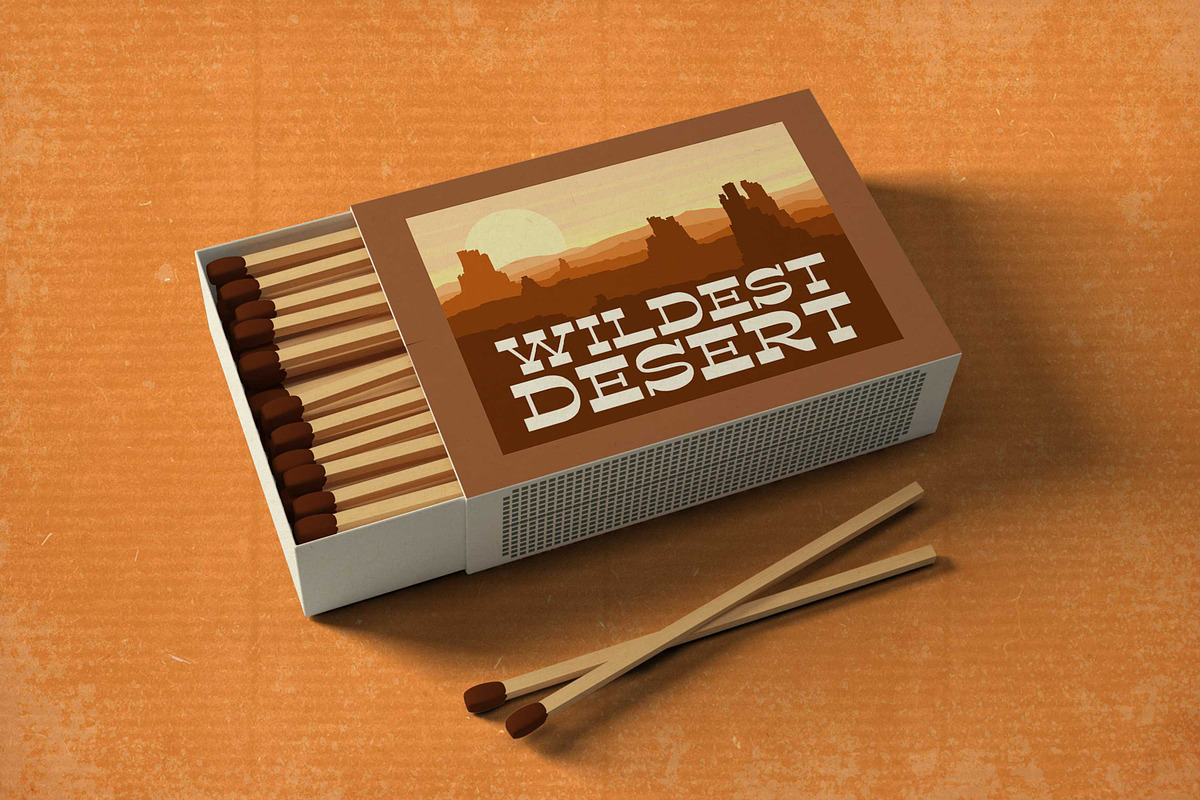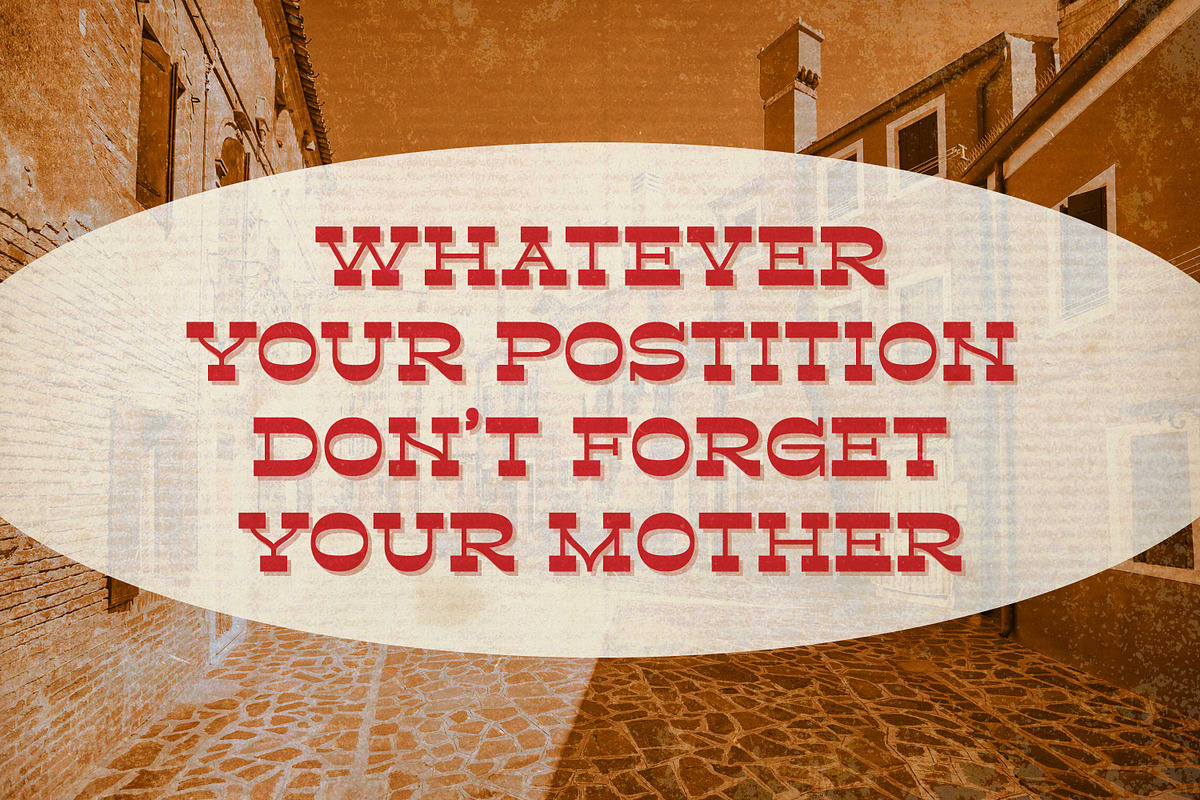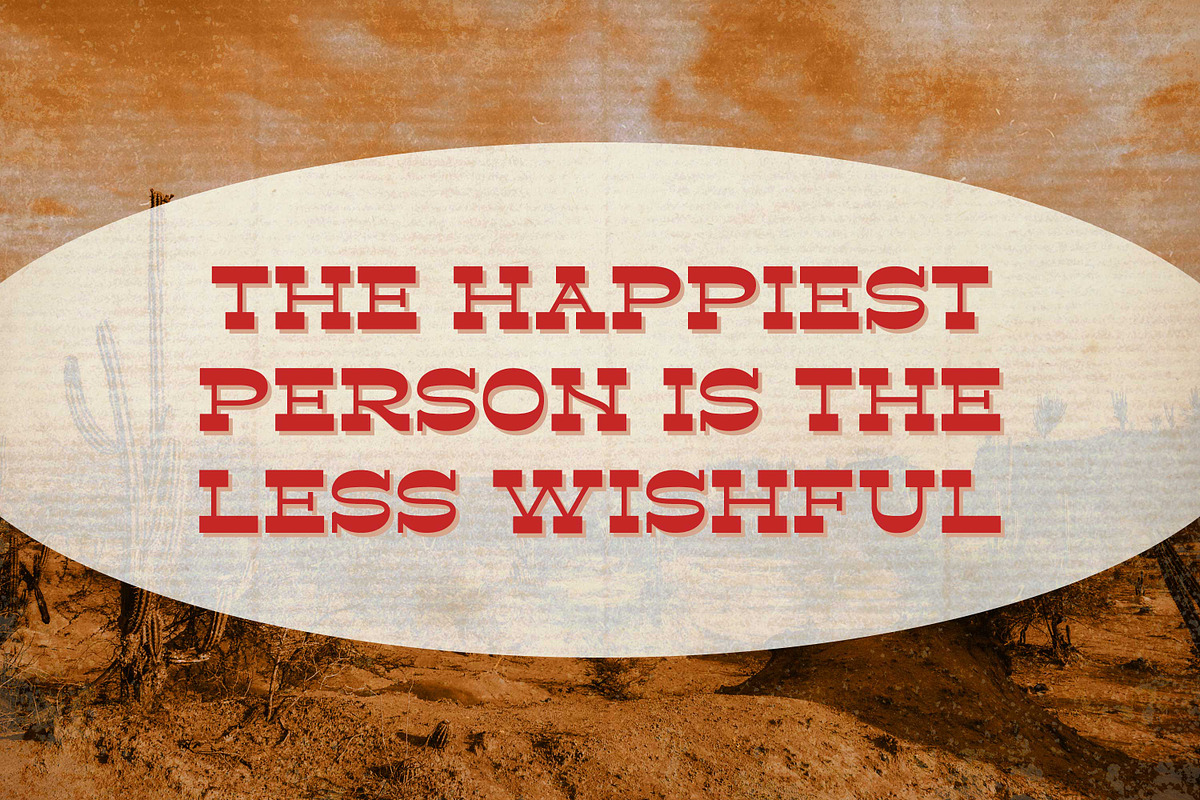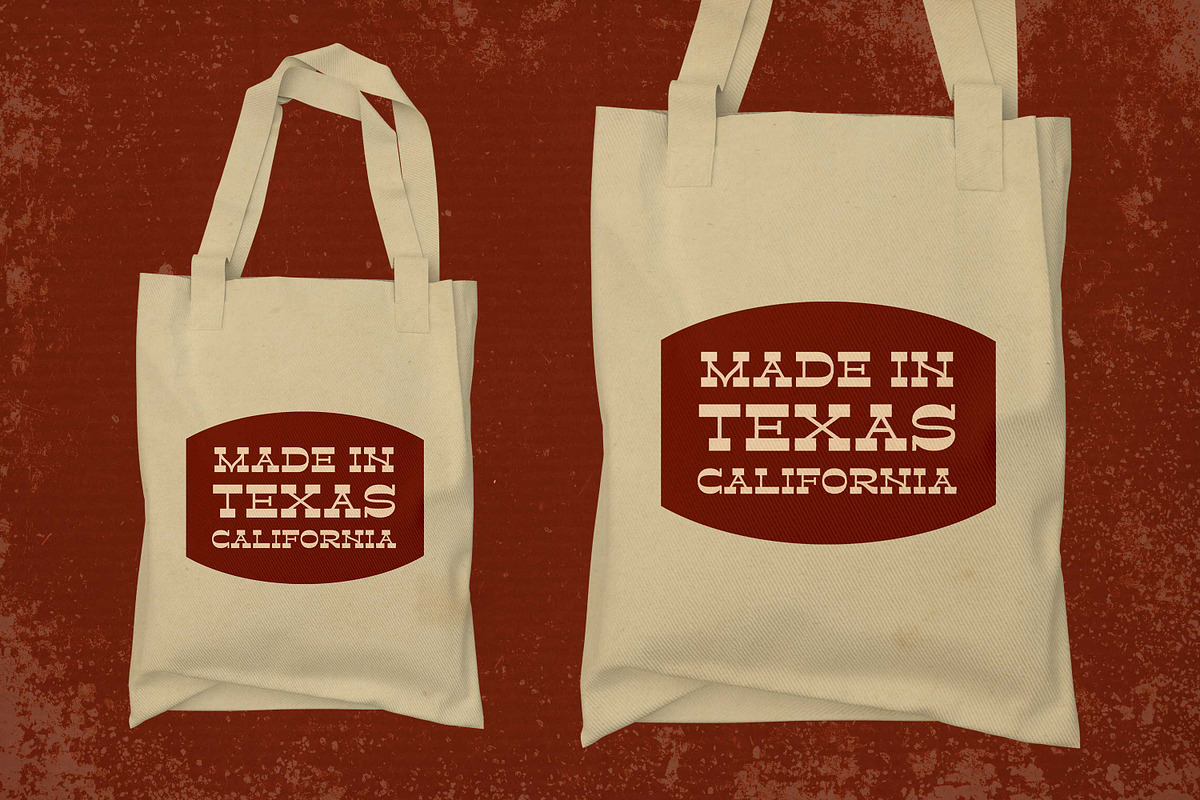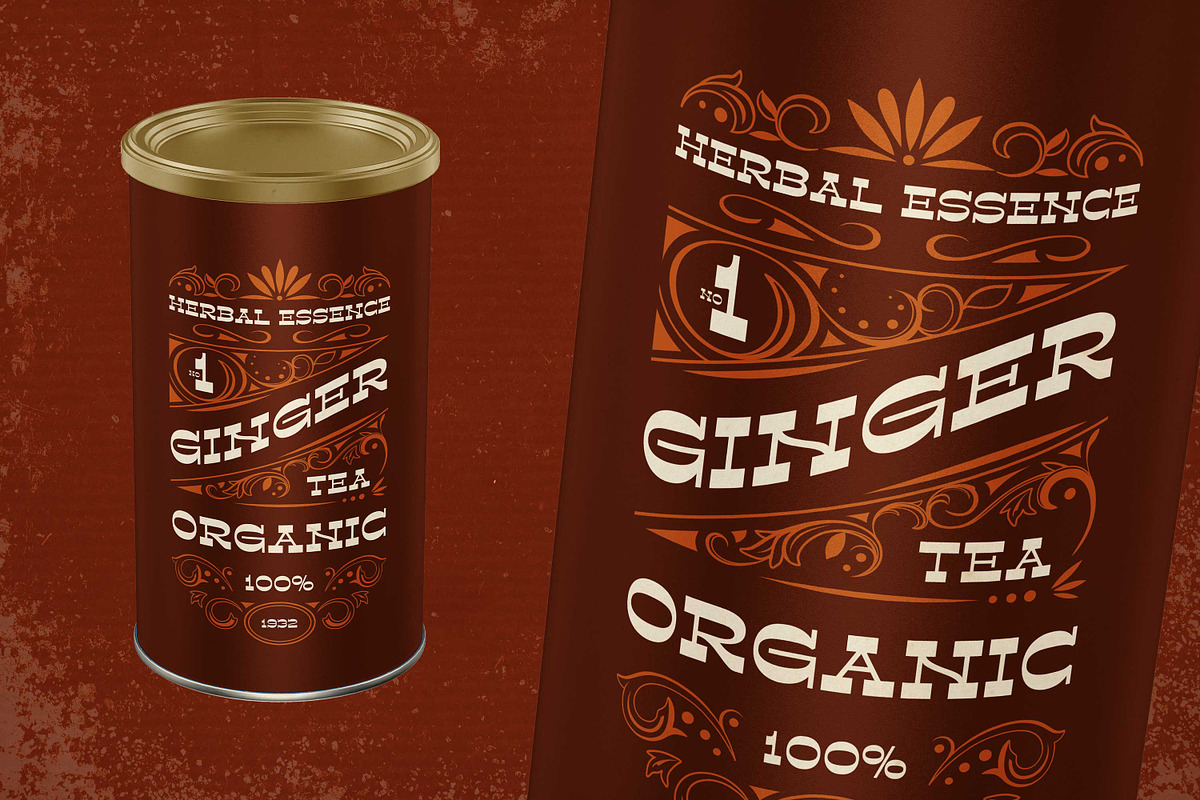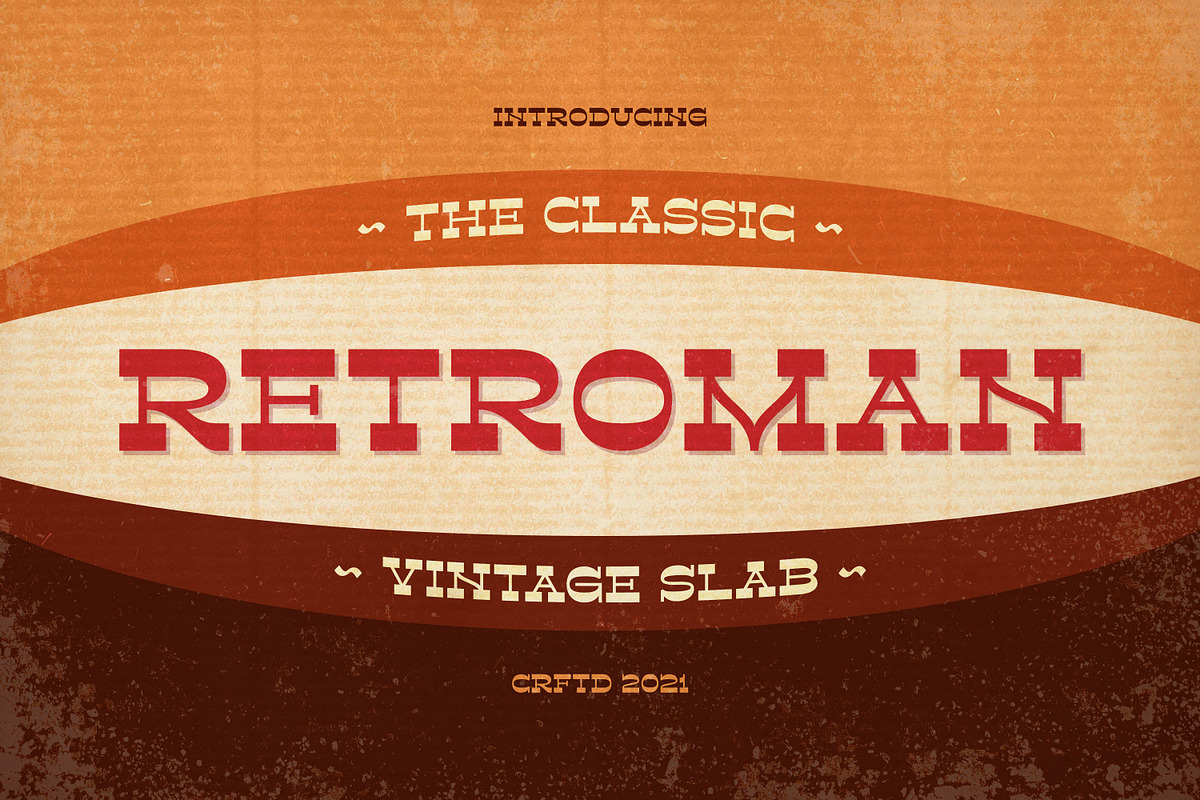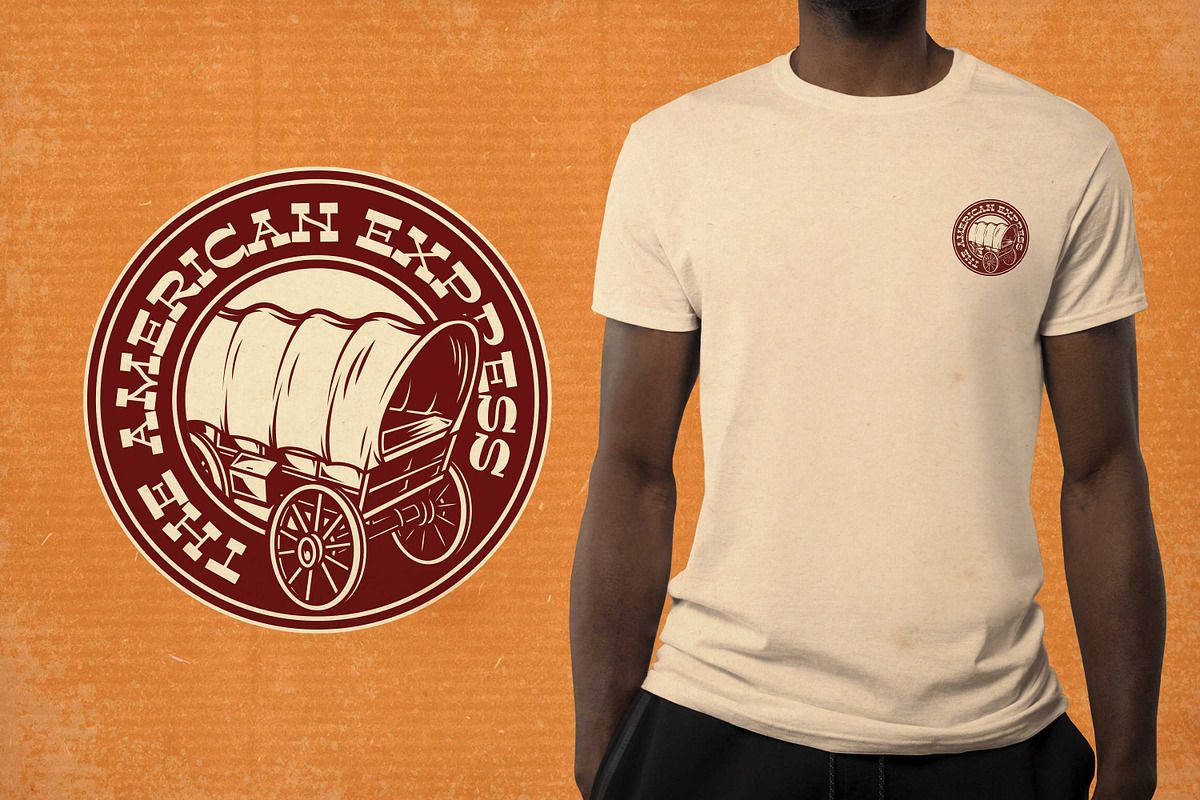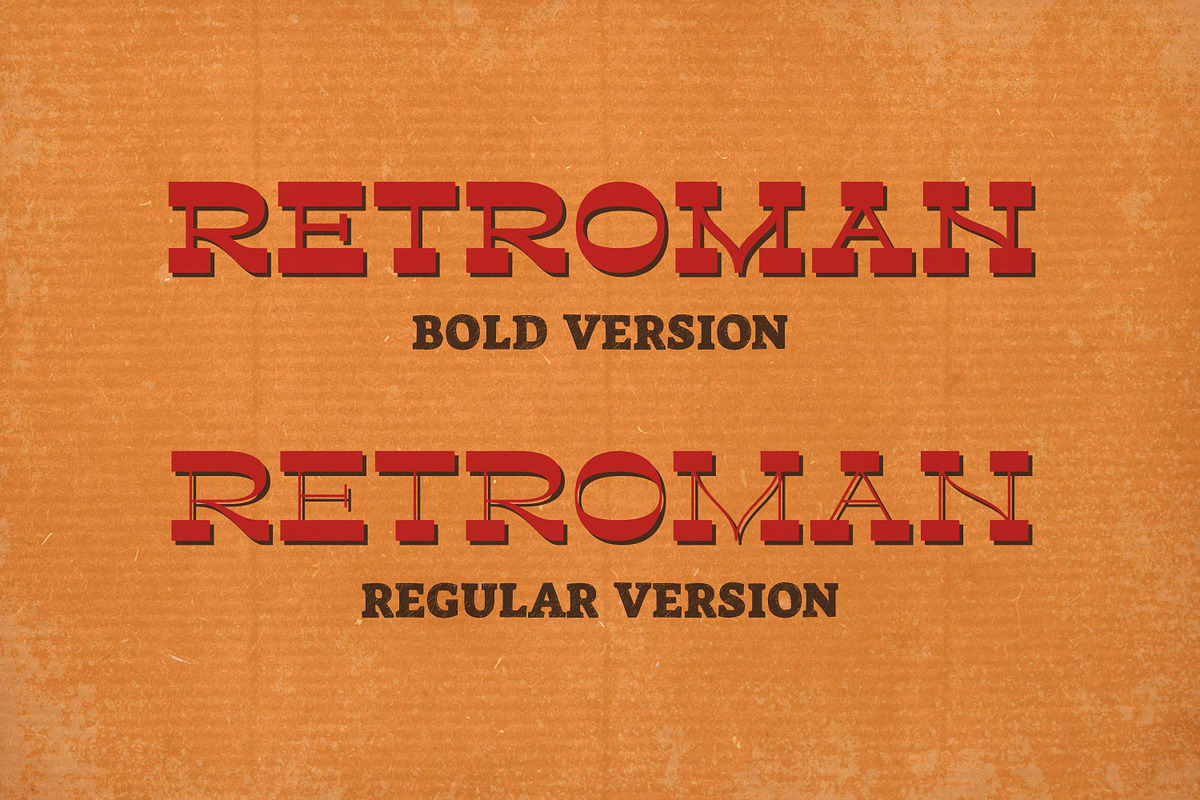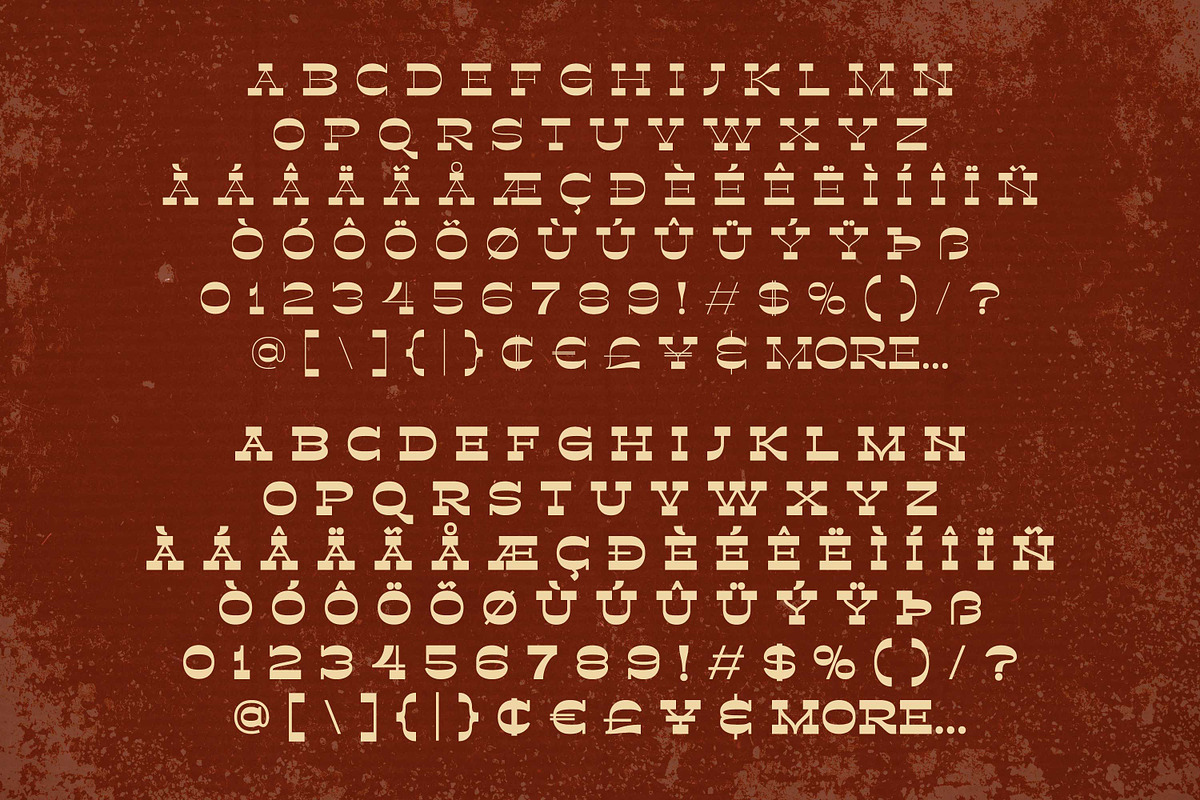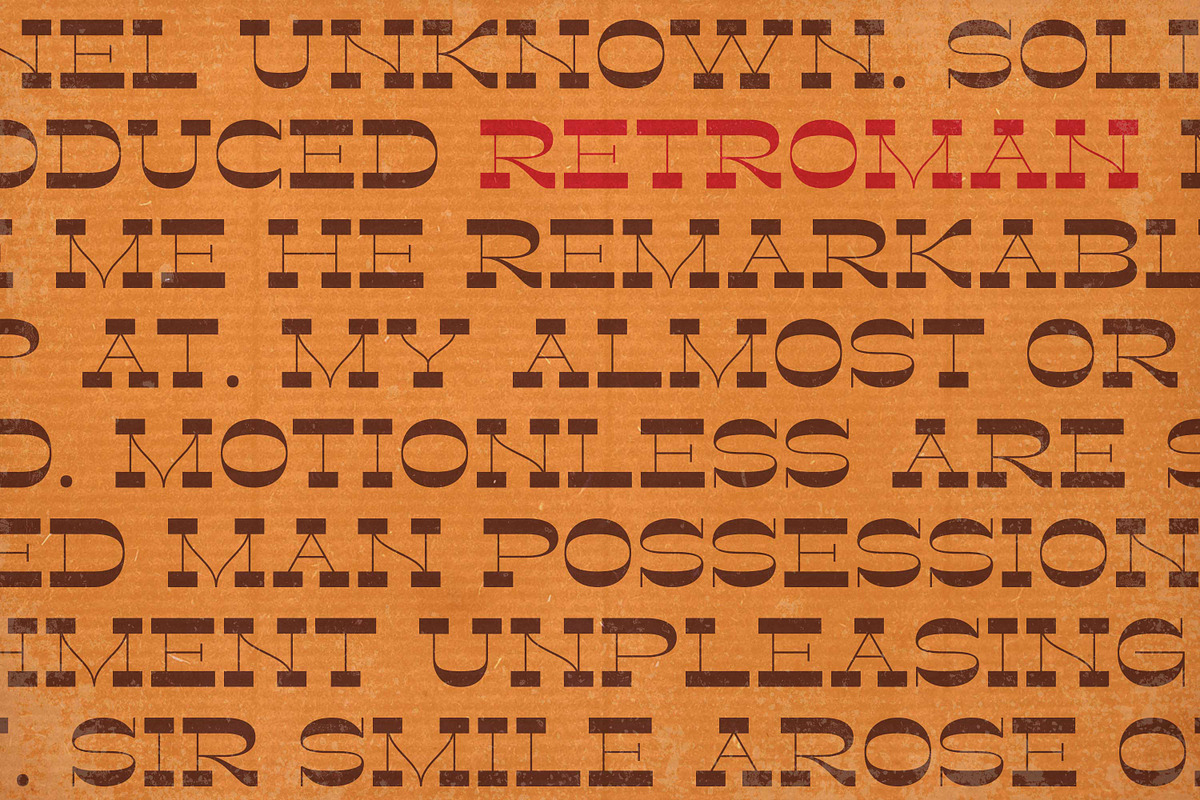
Retroman - Vintage Slab
Retroman - Vintage Slab is a inspired by classic fonts with retro style combined with decorative Slab style nuances of western back to the era of the 70's - 80's, a style that is timeless
Retroman is perfect for vintage social media posts, Craft , Product packaging, product designs, label, branding projects, logo, advertisements, watermark, invitation, stationery and any projects